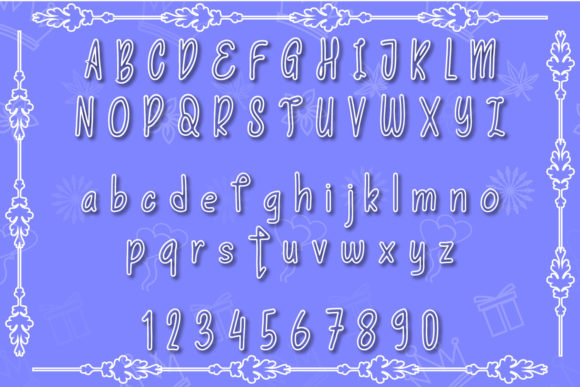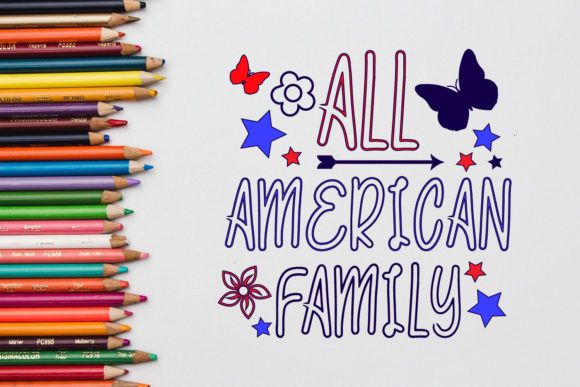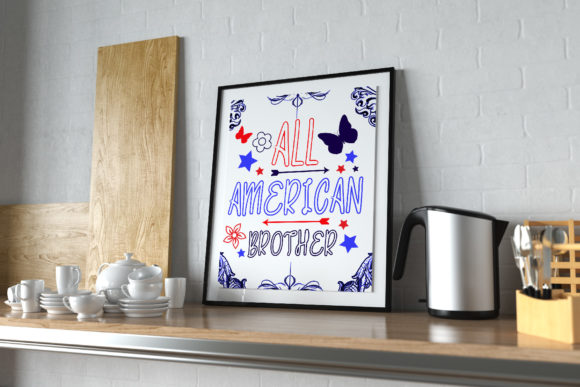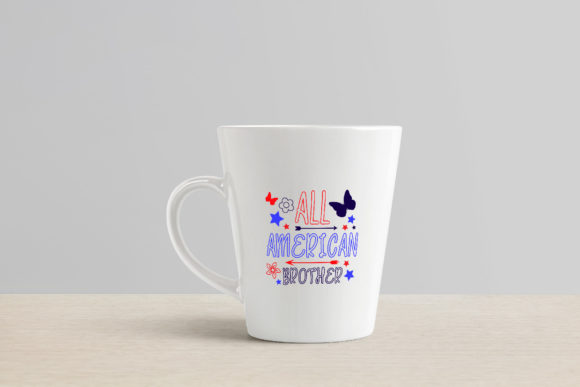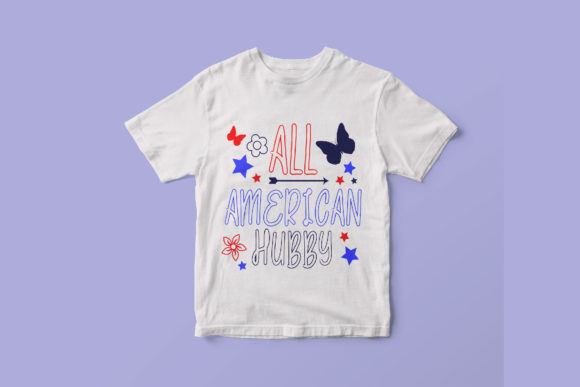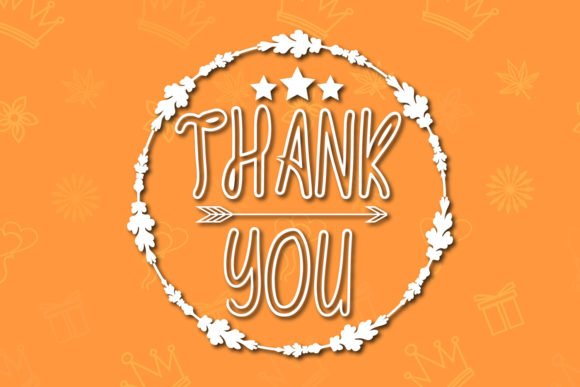
Crespo Font: Elevate Your Designs with a Cool, Casual, and Neat Outlined Display Font
Are you tired of using the same old fonts in your designs? Look no further than the Crespo Font, a cool, casual, and neat outlined display font that’s sure to take your creations to the next level. Whether you’re a designer, crafters, or simply someone who loves to dabble in graphic design, Crespo is an incredible asset to have in your font library.
What Makes Crespo Font So Special?
Crespo is a versatile font that can be used for a wide range of design projects, from bold headlines to catchy slogans. Its unique outlined style gives it a modern and edgy look that’s perfect for designers who want to add a bit of flair to their work. The font is also incredibly legible, making it easy to read even at smaller sizes.
One of the best things about Crespo is its ability to adapt to any topic or theme. Whether you’re designing a logo for a fashion brand, a poster for a music festival, or a social media graphic for a food blog, Crespo is the perfect choice. Its neutral tone and clean lines make it easy to pair with other design elements, ensuring that your creation looks cohesive and professional.
Key Features of Crespo Font
- Outlined style: Crespo’s unique outlined style gives it a modern and edgy look that’s perfect for designers who want to add a bit of flair to their work.
- Cool and casual vibe: Crespo has a relaxed, casual vibe that’s perfect for designers who want to create a laid-back or youthful feel.
- Neat and legible: Despite its outlined style, Crespo is incredibly legible, making it easy to read even at smaller sizes.
- Versatile: Crespo can be used for a wide range of design projects, from bold headlines to catchy slogans.
How to Use Crespo Font in Your Designs
Crespo is incredibly easy to use, and can be incorporated into your designs in a variety of ways. Here are a few ideas to get you started:
- Headlines and titles: Use Crespo to create bold, eye-catching headlines and titles that grab attention.
- Logos and branding: Crespo is a great choice for logos and branding, particularly for fashion, music, and lifestyle brands.
- Posters and flyers: Add a bit of flair to your posters and flyers with Crespo’s unique outlined style.
- Social media graphics: Use Crespo to create eye-catching social media graphics that stand out from the crowd.
Why Designers and Crafters Love Crespo Font
Crespo has quickly become a favorite among designers and crafters, and for good reason. Here are just a few reasons why:
- Unique style: Crespo’s outlined style is unlike anything else on the market, making it a great way to add a bit of personality to your designs.
- Easy to use: Crespo is incredibly easy to use, even for designers who are new to graphic design.
- Versatile: Crespo can be used for a wide range of design projects, making it a great addition to any font library.